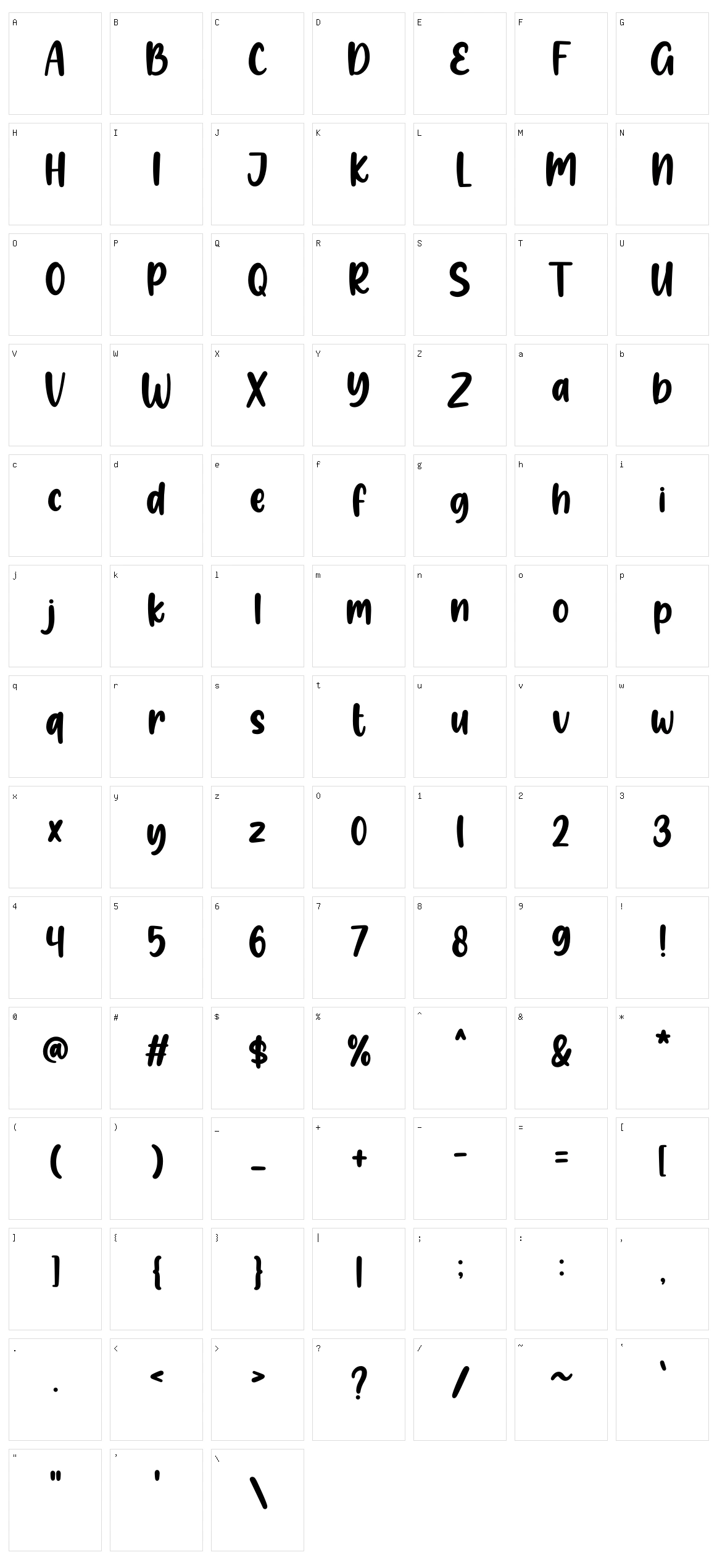
The free font Moody Babe is carefully designed by Graphix Line Studio, showcasing a thoughtful balance of creativity and usability and falls under the Cartoon font style. When you download the ZIP file, it contains only 130.58 KB of font files, making it lightweight and quick to download. Please review the license details below to understand permitted usage and distribution rights. If license information is not available, we recommend using this font for personal projects only or contacting the author directly for commercial usage permissions.